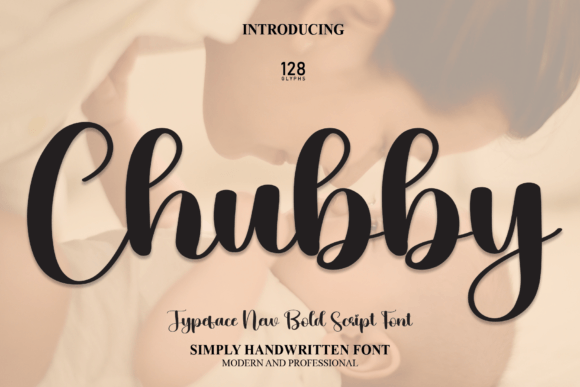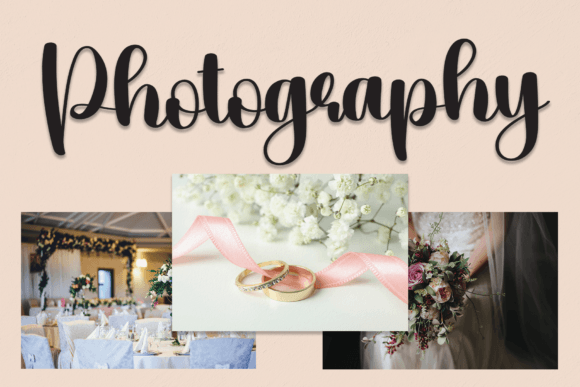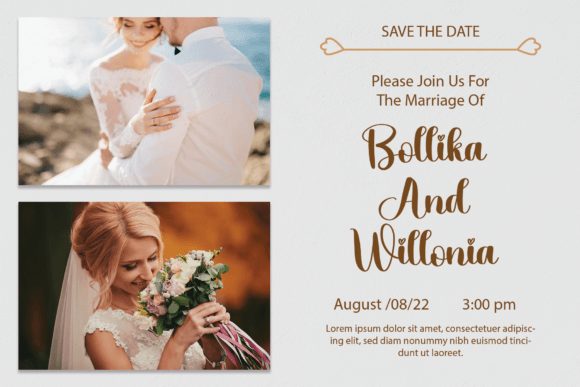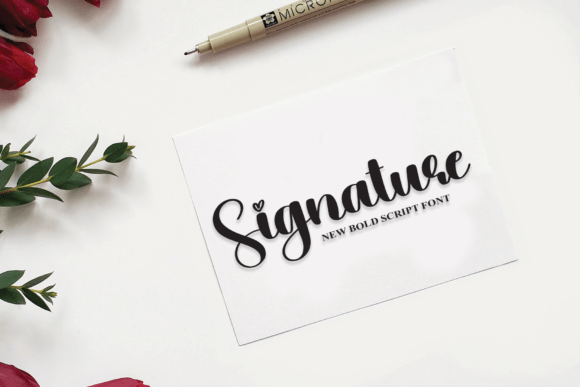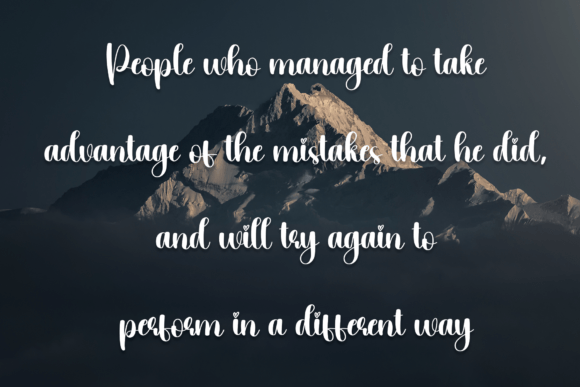
About Chubby Font
**Chubby: A Lovely and Cute Handwritten Script Font**
Introducing Chubby, a delightful and cute handwritten script font that combines a sense of charm, elegance, and modernity. This versatile font is perfect for a wide range of design applications, including logos, branding, invitations, stationery, wedding designs, social media posts, and more.
Chubby’s primary allure lies in its cute and friendly style. The handwritten script characters are meticulously crafted to exude a sense of approachability and authenticity. Whether you’re working on branding materials that require a touch of cuteness or crafting wedding designs that call for elegance, Chubby adapts seamlessly to your creative vision.
The versatility of Chubby makes it a valuable asset for various design contexts. It can be used to create memorable logos that stand out with their unique charm, or it can add a touch of class to wedding invitations and stationery. Its modern look ensures that your designs remain fresh and stylish.
In summary, Chubby is more than just a font; it’s a source of loveliness and cuteness that enhances your design projects. Its cute and handwritten script letters make it a versatile choice for infusing charm and modernity into your work. With Chubby, your creative projects will shine with a delightful and inviting appeal. Choose Chubby, and let your designs captivate with its lovely and cute charm.